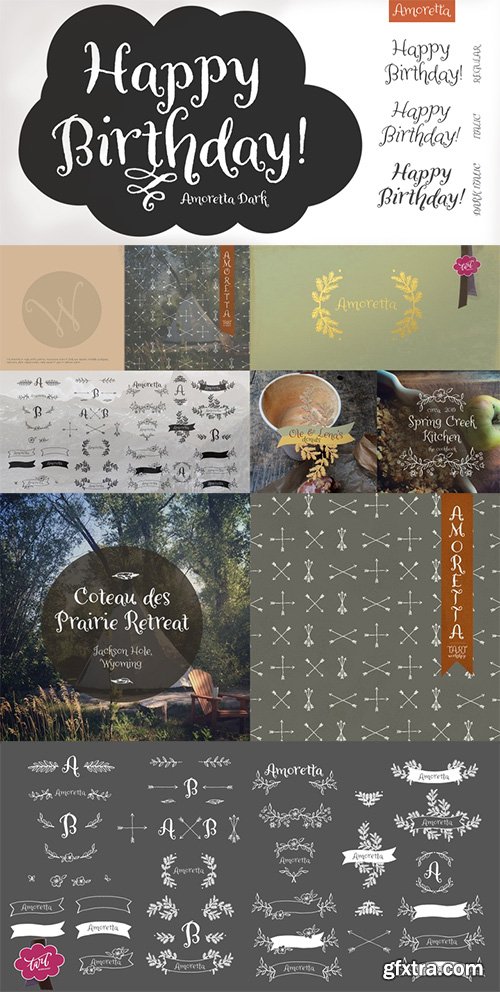
Amoretta = Little Love.
Our sweet Amoretta is optimistic & bright. A charming balance of youth and sophistication, Amoretta is full of opportunity for print (Identity projects, stationery, book design, packaging design) or online applications (eBooks, games, websites). Easy to read on small or large scale platforms, she’s the perfect alternative to a script typeface in projects seeking a romantic or feminine touch. As an OpenType family with regular, regular italic, dark, dark italic and ornament fonts that include just the right amount of extras, alternates and ligatures, she’s a delight to work with and make your own.Amoretta’s hand drawn ornaments which reflect the seasons (Spring flowers, Summer foliage, Autumn archery, Winter evergreens) are plump with inspiration for logos and stationery projects. Use them separately or combine the glyphs into a endless assortment of unique designs and patterns.Share a little love with Amoretta.